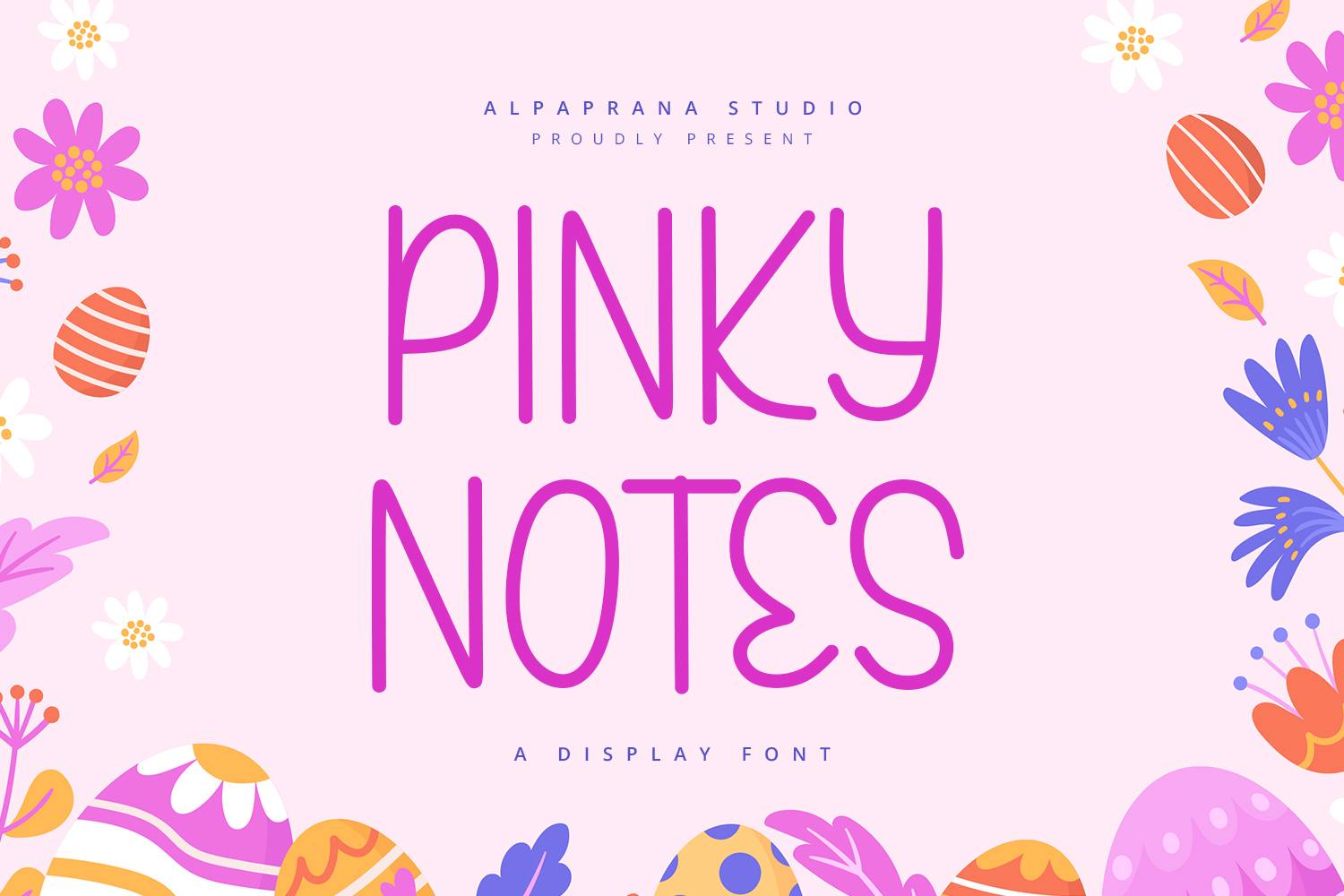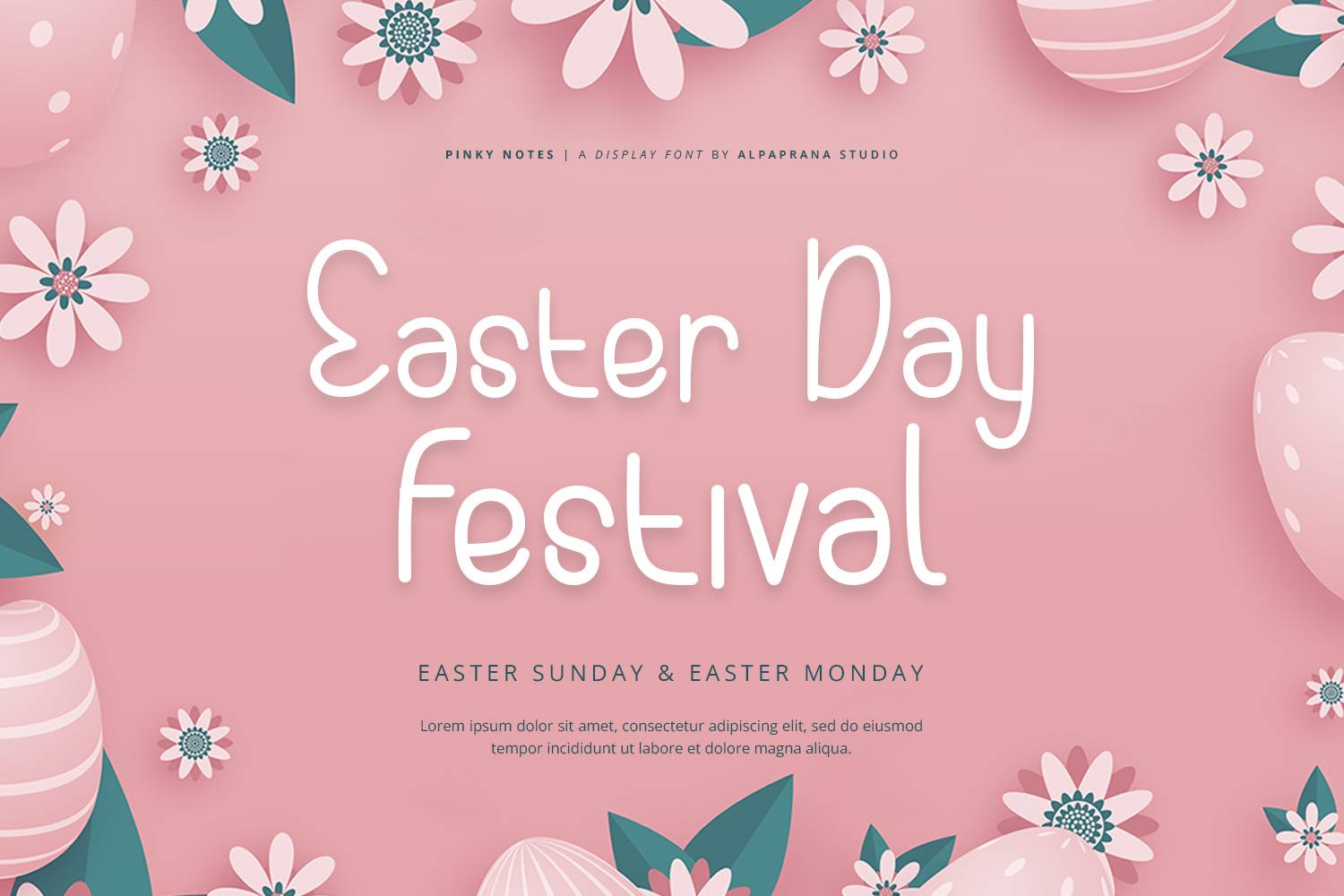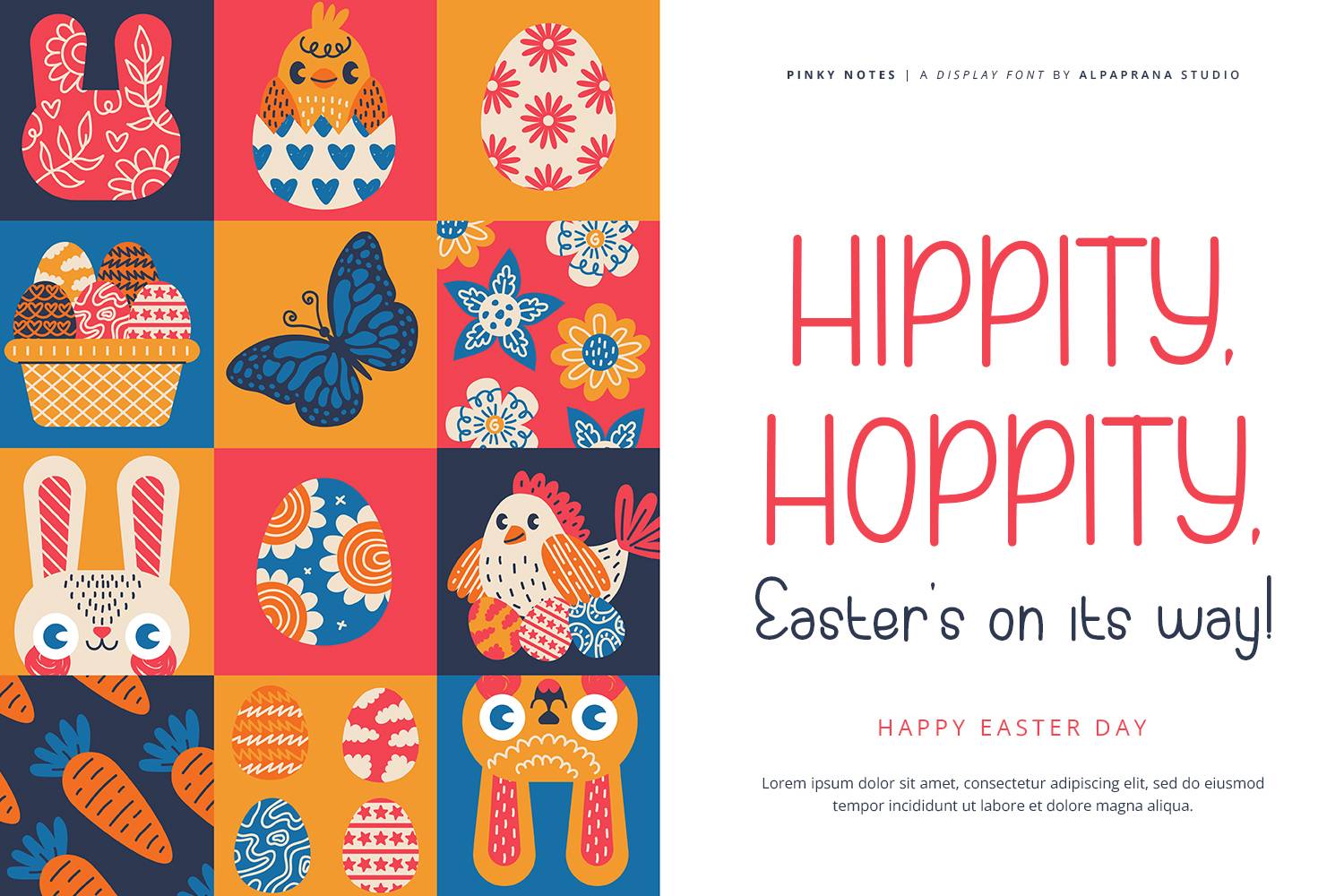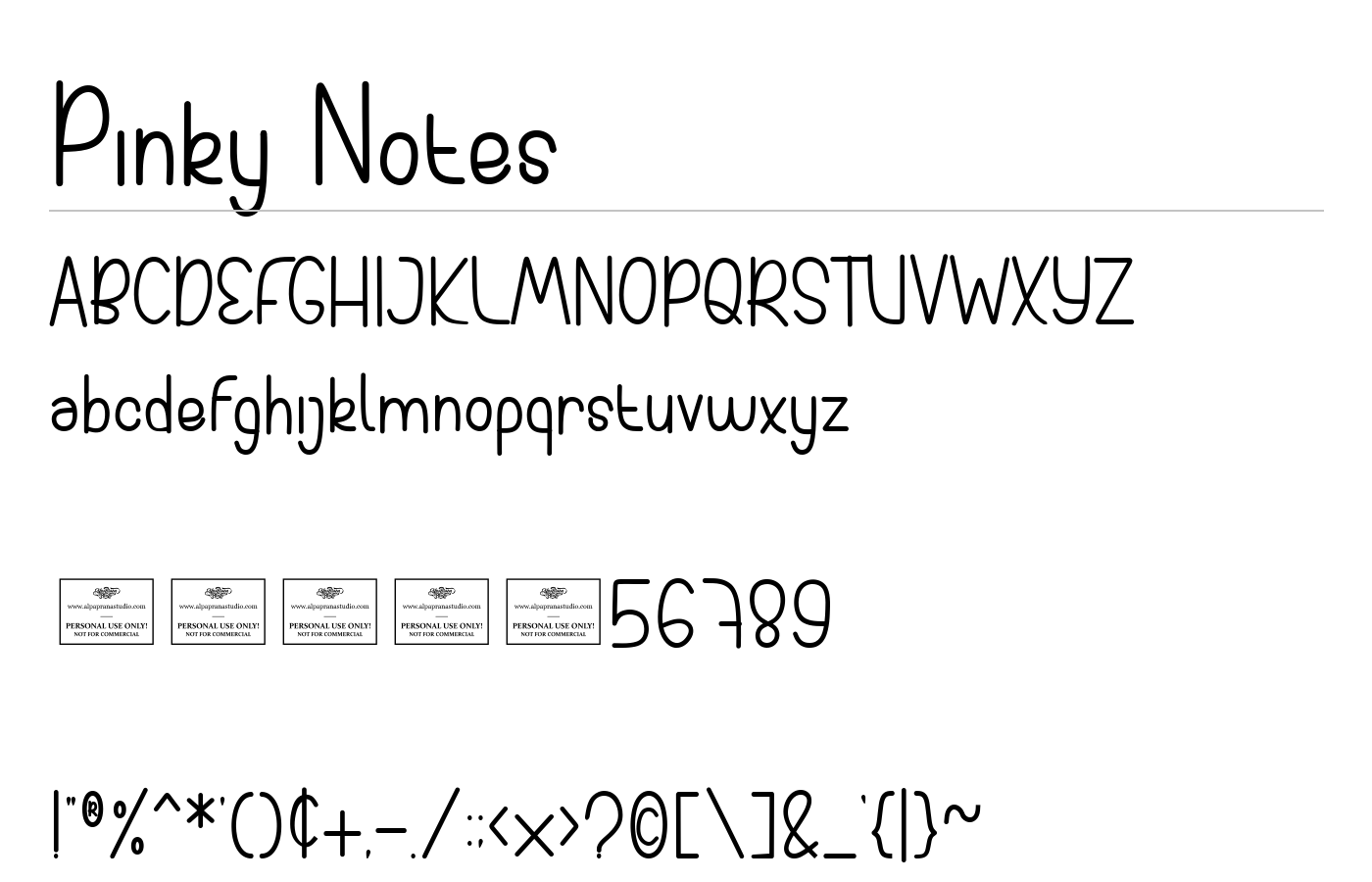
Pinky Notes is a playful, handwritten sans serif font characterized by its thin, slightly uneven strokes and tall, narrow letterforms that give it a quirky, casual feel. Its simple, clean lines and unique letter shapes make it perfect for fun, informal designs like children’s books, creative logos, and lighthearted branding. This font works well in both headlines and short text blocks where a friendly and approachable vibe is desired.
Pinky Notes Font